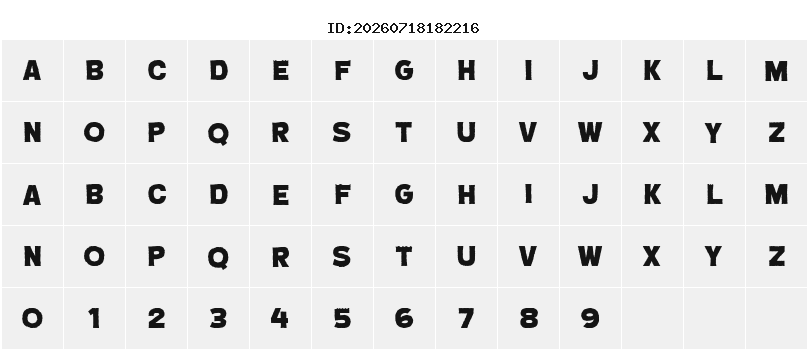
• Font Name: CryptCreep Heavy BB
• Designer: Nate Piekos
• Manufacturer: Nate Piekos. Blambot.com
About CryptCreep Heavy BB.ttf
CryptCreep Heavy BB.ttf is a modern, elegant sans-serif font designed for ultimate readability and visual harmony. Perfect for branding, headlines, web design, and print materials.